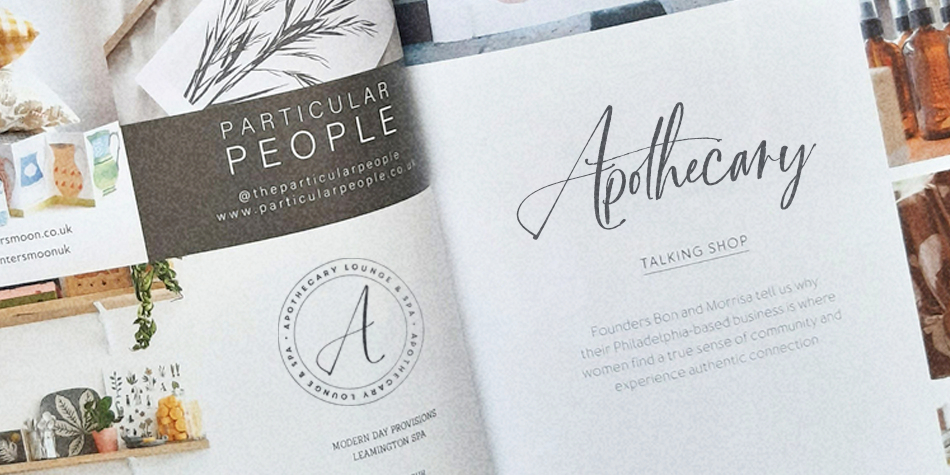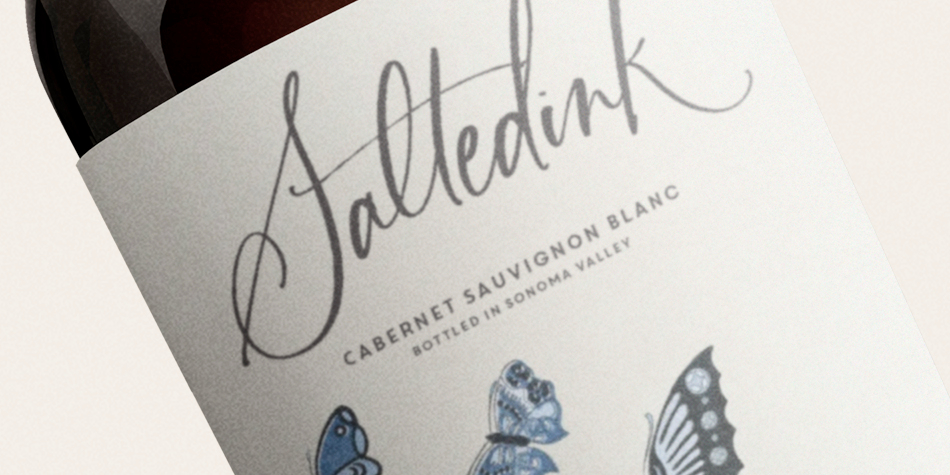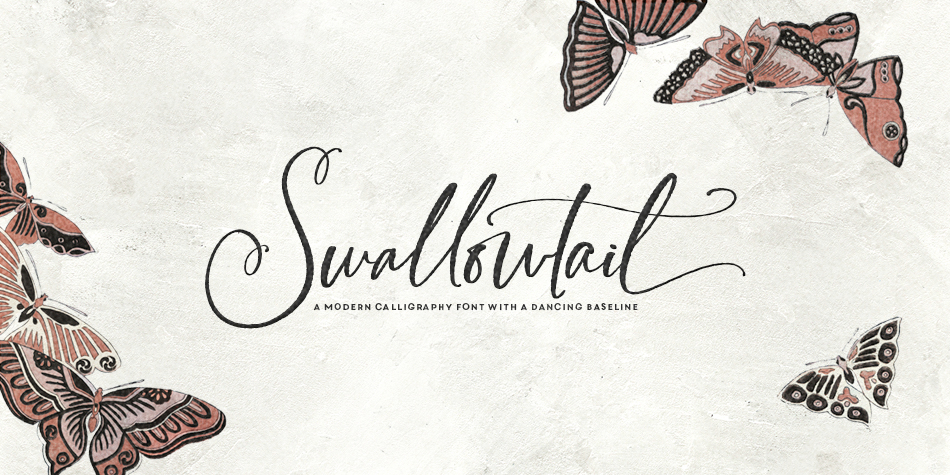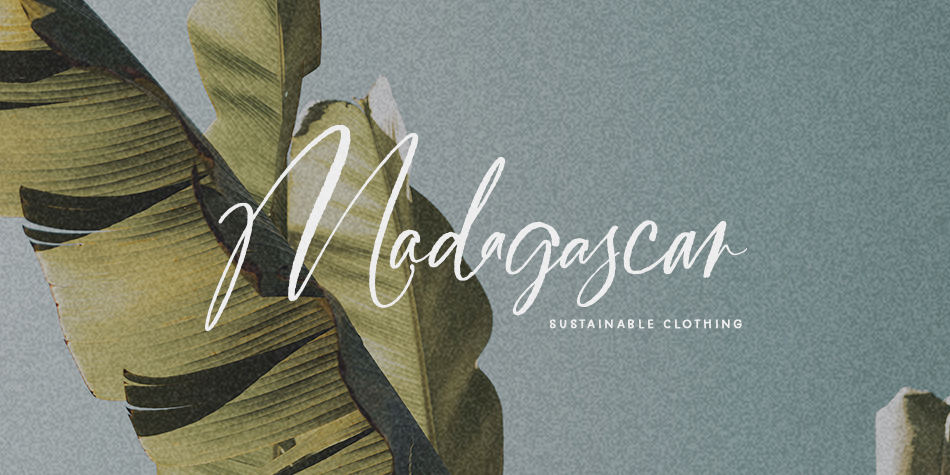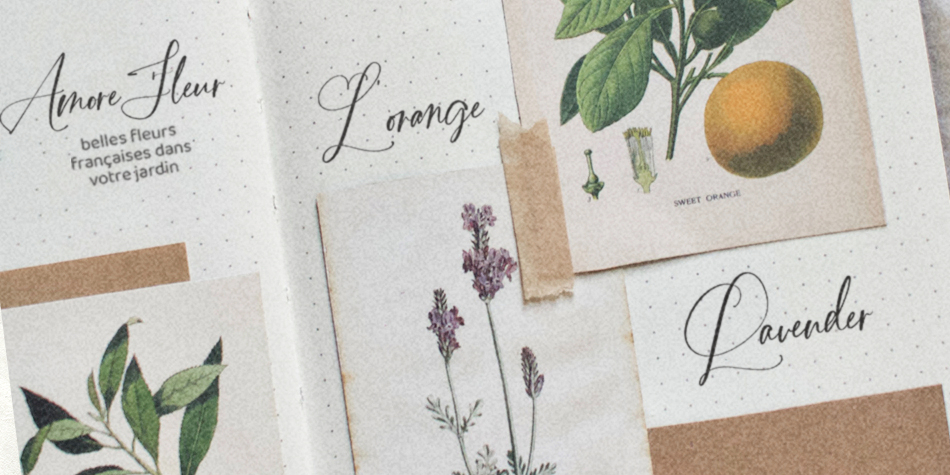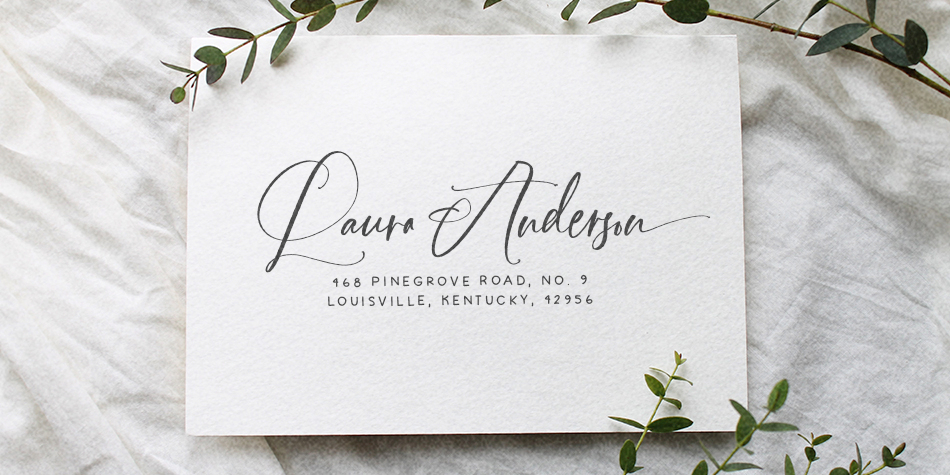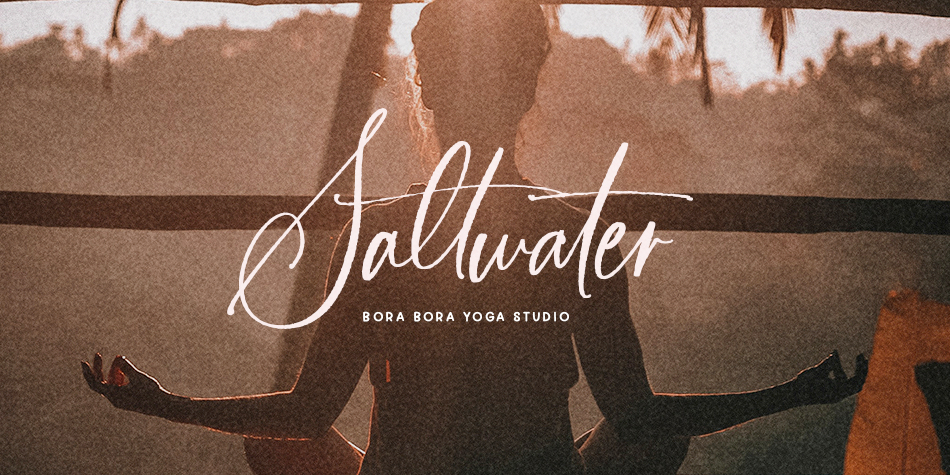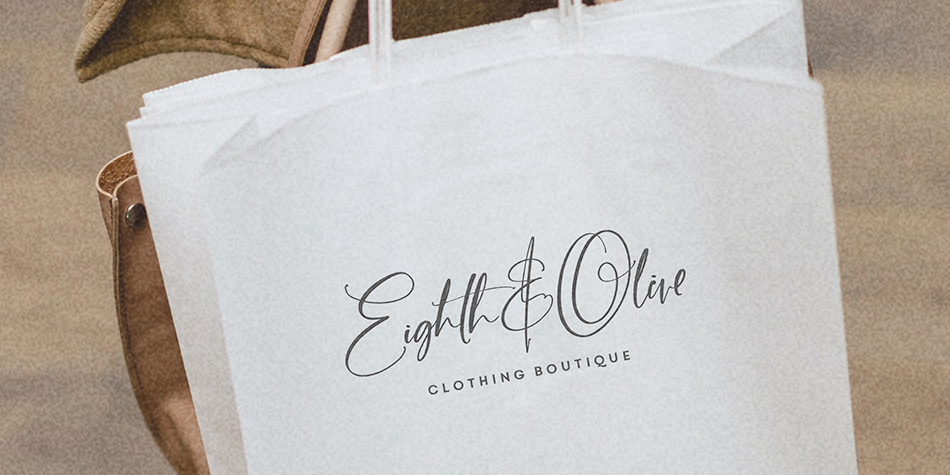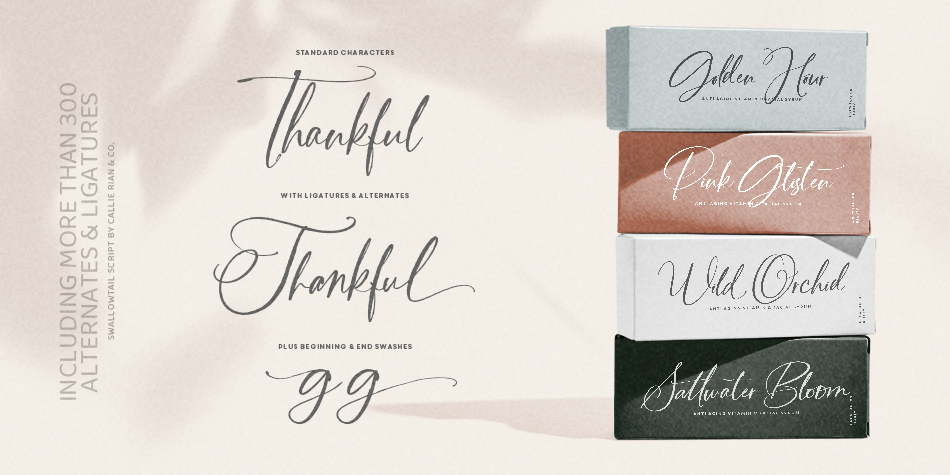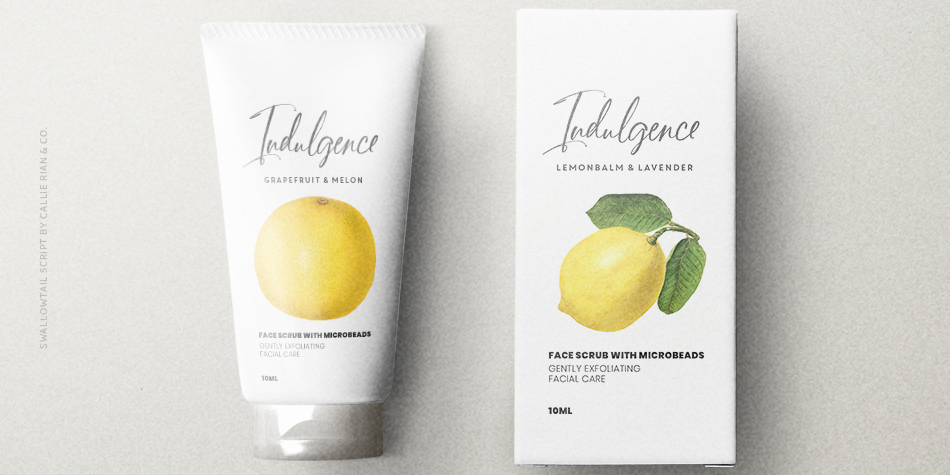
Swallowtail
Designed by Callie Hegstrom, Swallowtail is a modern calligraphy font family published by MakeMediaCo.
Introducing Swallowtail, a delicate modern calligraphy font with over 300 ligatures and alternates. Designed to mimic natural calligraphy handwriting, this lovely typeface is loaded with bells and whistles to make your next headline, logo or packaging stand out. The hand written letterforms and dancing baseline mimic organic handwriting and lend an authentic vibe to just about any project. Use on greeting cards, branding, logos, products, stickers, journals, bridal and so much more!